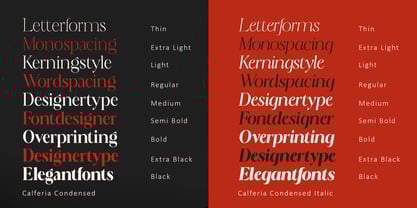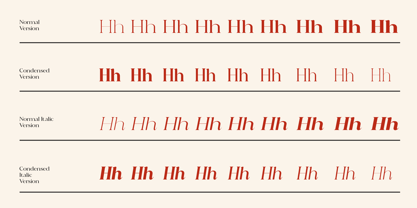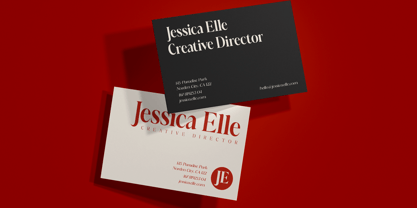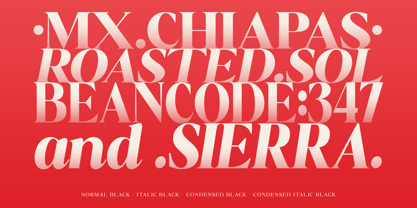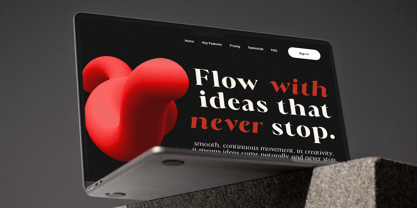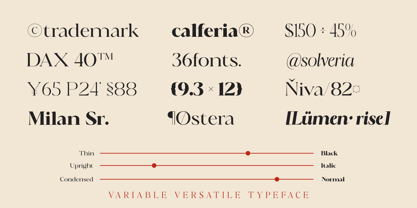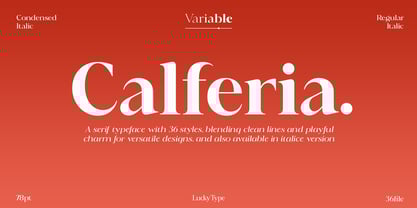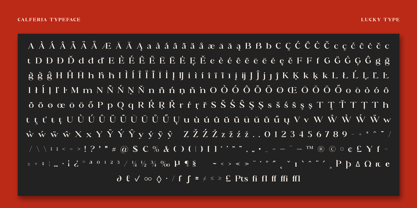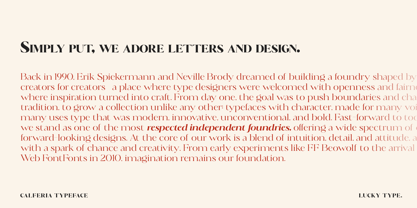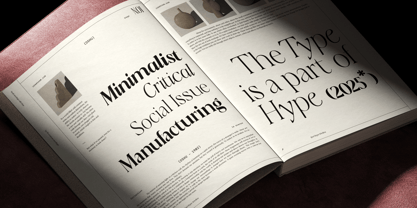
Calferia
The Calferia Font Family was designed by Muhammad Fajar and published by Lucky Type. Calferia contains 40 styles and family package options. More about this family
Calferia is a modern serif typeface that blends timeless elegance with contemporary charm. Designed with balanced proportions, smooth curves, and refined details, it delivers a professional yet playful character. With 36 versatile styles, including italic versions, Calferia adapts seamlessly to branding, editorial design, posters, and digital media. Its bold yet approachable personality makes it the perfect choice for designers seeking sophistication and versatility in typography